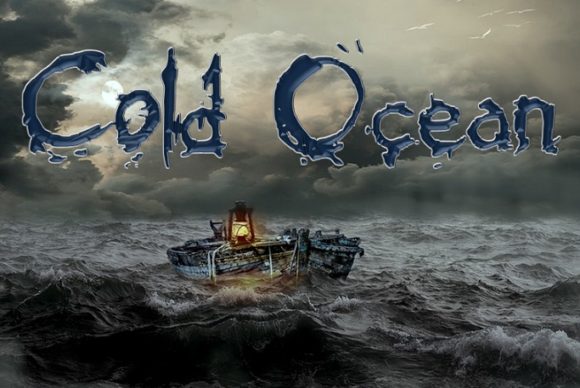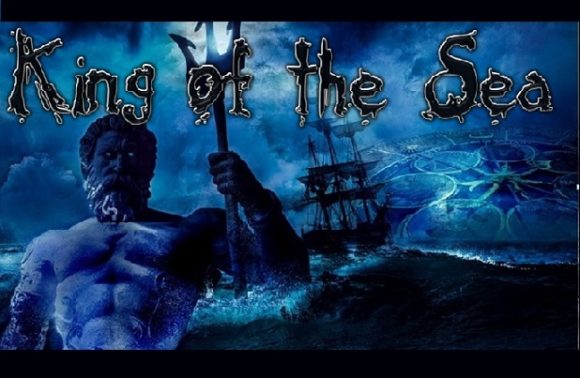
Cold Ocean Font
About Cold Ocean Font
Cold Ocean is a bold handwritten font with mysterious and old world vibe. It will put a unique spin on any design idea!